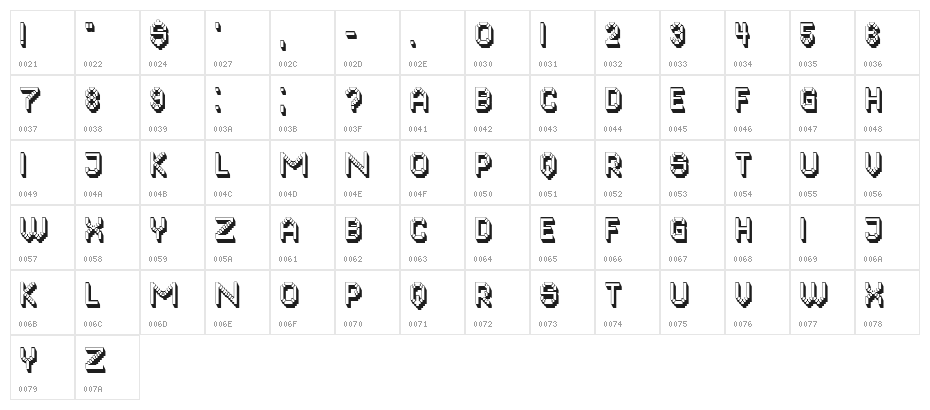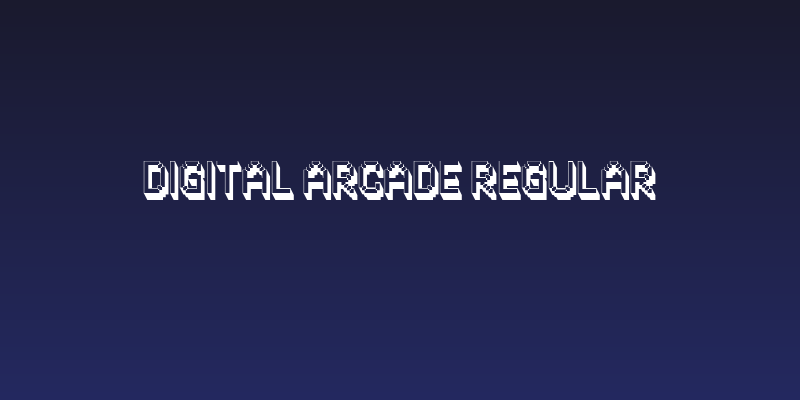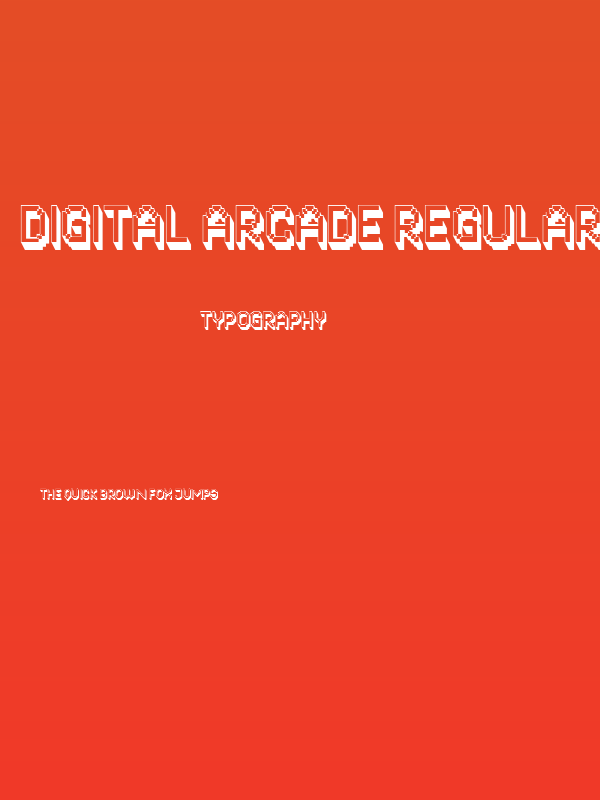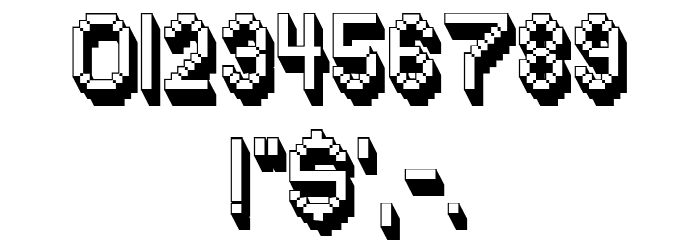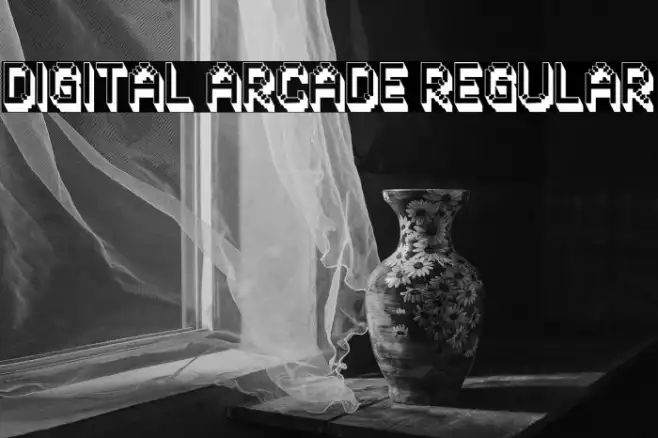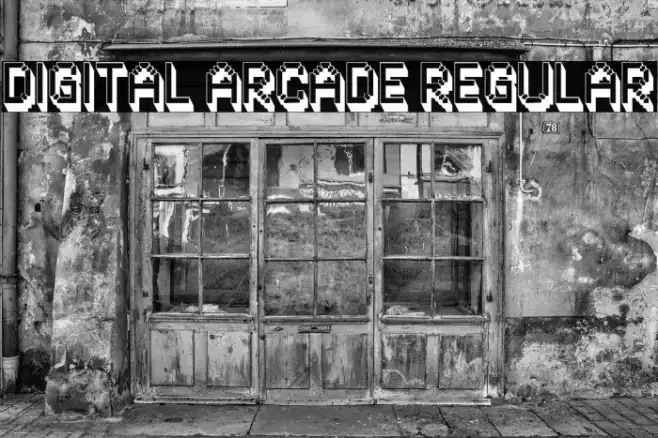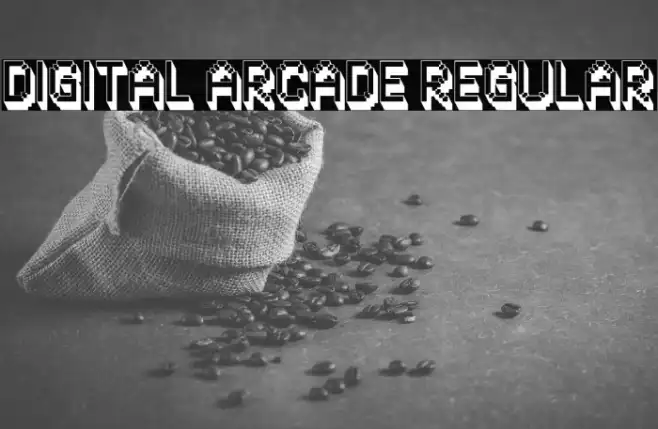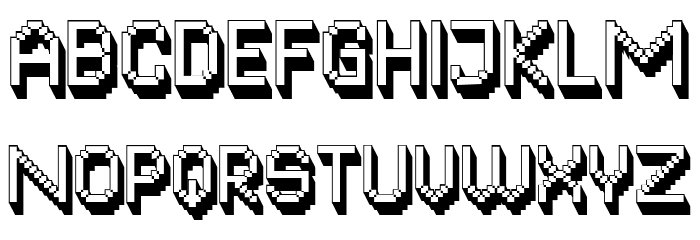
Digital Arcade Regular Font
Digital Arcade Regular Description
This font features a bold, three-dimensional design reminiscent of classic arcade games. Each character is constructed with a blocky, pixelated style that gives a nostalgic, retro feel. The letters and numbers are outlined with a shadow effect, enhancing the 3D appearance and adding depth. The geometric shapes are consistent throughout, creating a uniform and cohesive look. The font is highly stylized, making it ideal for projects that aim to evoke a sense of vintage digital aesthetics. Its unique design is both eye-catching and playful, suitable for creative and entertainment-focused applications.
| Overall Style | Retro, Decorative |
| Proposed Projects | Ideal for video game titles, retro-themed posters, digital art projects, and branding for tech or gaming companies. |